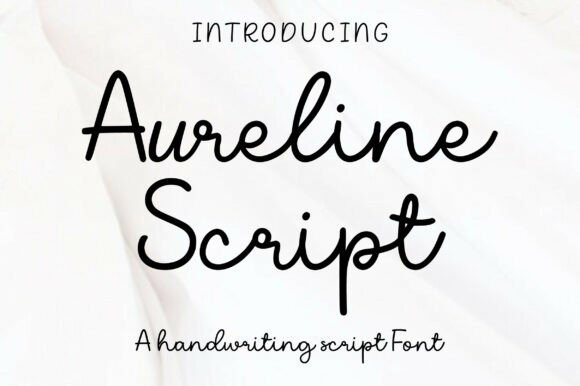
Discovering the Perfect Touch: Aureline Script Font
As you sit at your desk, surrounded by scribbled notes and scattered ideas, you stumble upon that one perfect phrase – a quote, a message, or a simple phrase that captures the essence of your project. It’s in these moments of creative spark that you crave the perfect font to elevate your design and bring it to life. That’s where the Aureline Script Font comes in – a clean and smooth handwritten font that adds a touch of elegance to any design.
Whether you’re crafting a logo, designing an invitation, or building a brand, the Aureline Script Font is an invaluable asset. Its simple and natural flow gives every design a personal touch, making it perfect for projects that require a unique and sophisticated feel. With the Aureline Script Font, designers can add a level of sophistication and refinement to their work, setting it apart from the rest.
Aureline Script Font Key Features
- Unique Characteristics: Aureline Script Font features a beautiful, elegant script style with intricate connections and flourishes, making it perfect for wedding invitations, calligraphy, and other creative projects.
- Styling Options: Aureline Script Font includes multiple stylistic sets and alternates, allowing designers to add subtle variations and nuances to their text, giving it a more dynamic and expressive feel.
- Font Pairing: The font pairs well with modern sans-serif fonts, such as Open Sans or Lato, creating a striking contrast that adds visual interest to designs.
Aureline Script Font Review
Aureline Script is a beautiful, elegant font that’s perfect for adding a touch of sophistication to your designs. ✨ The flowing connections between letters make it ideal for use in wedding invitations, luxury branding, and any other project that requires a high-end feel.
- Beautiful, cursive script style that’s perfect for adding a touch of elegance to your designs ✨
- Highly legible, even in smaller font sizes
However, there are a few limitations to consider: ⚠️ The font can be quite busy, which may make it difficult to read in certain situations. Additionally, the connections between letters can be a bit inconsistent, which may affect the overall flow of your text.
Overall, I’d say Aureline Script is a great choice for designers who want to add a touch of elegance to their projects. While it’s not perfect, its beautiful script style and high legibility make it a great option for a wide range of applications.
The Aureline Script Font is ideal for:
- Birthdays and party invitations
- Typography posters and quotes
- Hand-lettered designs and illustrations
- Sophisticated title slides and headings